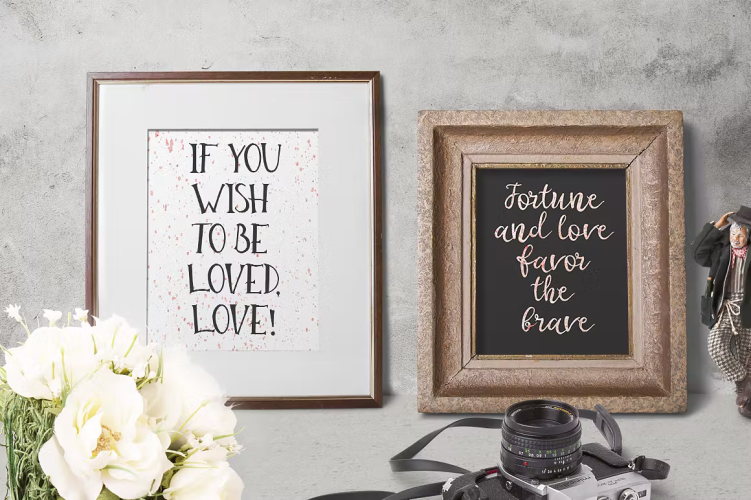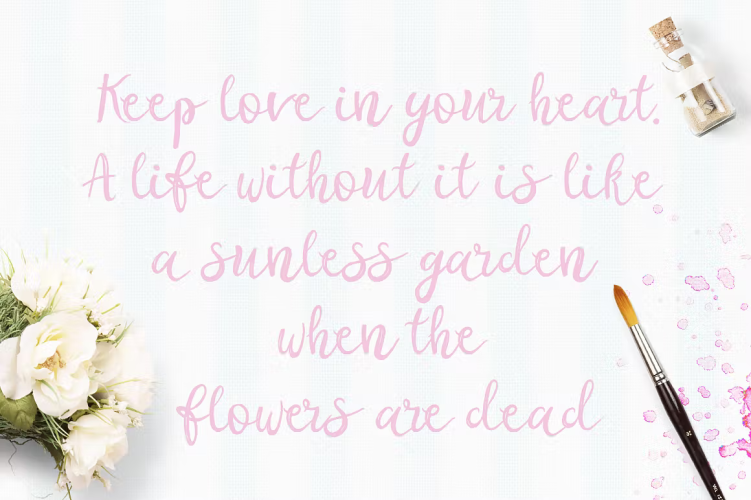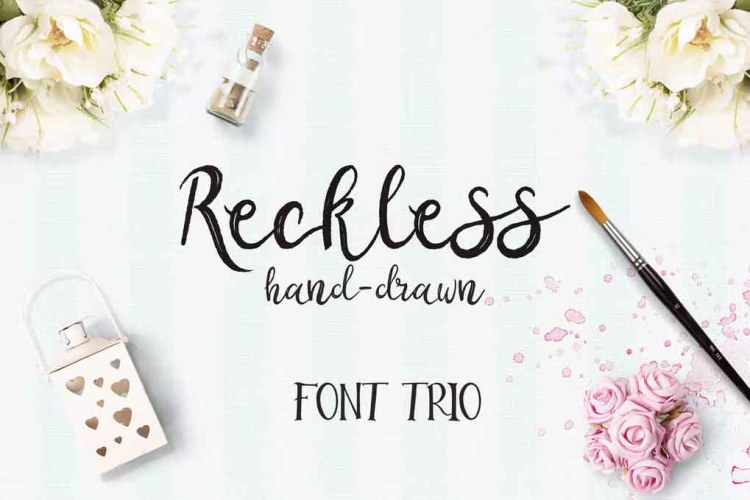
Reckless Font Trio
Package includes 3 handwritten font: Reckless Script handwritten brush with with ragged edges, Reckless Regular written by a brush with the shabby effect. Reckless HandD…
Package includes 3 handwritten font: Reckless Script handwritten brush with with ragged edges, Reckless Regular written by a brush with the shabby effect. Reckless HandDrawn it is sloppy outlines, which are suitable for posters and funny cards. Reckless Regular includes Latin Extended
Where Reckless Font Trio works best
A short phrase in Reckless Font Trio carries warmth that a typeset sans cannot fake; keep the rest of the card plain.
Chalkboard-style headings in Reckless Font Trio make a menu feel hand-made. Keep the dish descriptions in a simple face so prices stay readable.
One line of Reckless Font Trio over a photo is enough; the script carries the tone and the caption does the work.
What kind of work does Reckless Font Trio suit?
It sits in the Script And Handwritten group and reads as handwritten, professional, script, script and handwritten. That makes it a candidate wherever those qualities help: headings, packaging, social graphics and brand work. Set it at the size you plan to use before deciding.